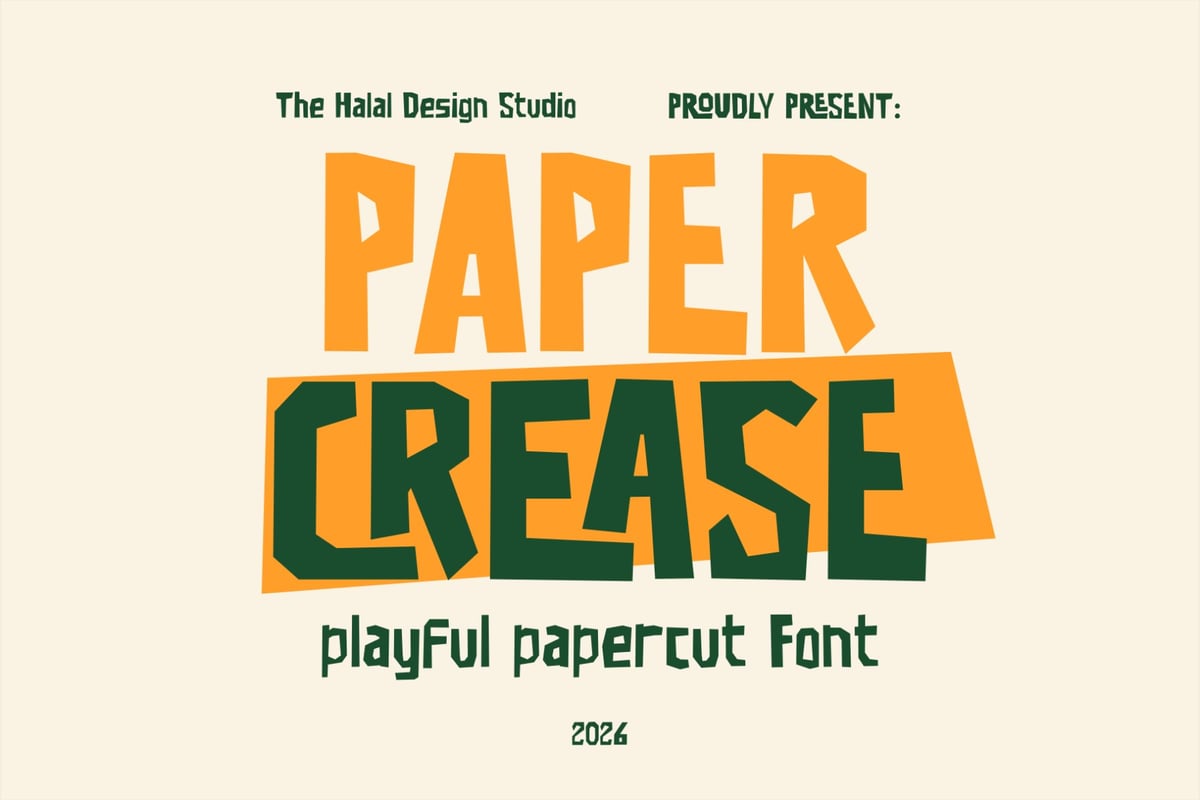
Paper Crease - Playful Papercut Font
Bring a crafty, handmade energy to your designs with Paper Crease — a bold, playful papercut typeface built for standout creative work.
Paper Crease captures the charm of paper craft aesthetics through cutout-inspired shapes, bold curves, and handcrafted letterforms. Whether you're designing for kids, creating eye-catching posters, or building a fun brand identity, this typeface delivers cheerful, expressive typography that works beautifully in both print and digital applications.
It's an ideal fit for children's content, educational materials, packaging, social media graphics, and anywhere a playful, imaginative tone is needed — all while maintaining strong readability at any size.
- Ligatures and alternates for enhanced typographic flexibility
- Multilingual language support